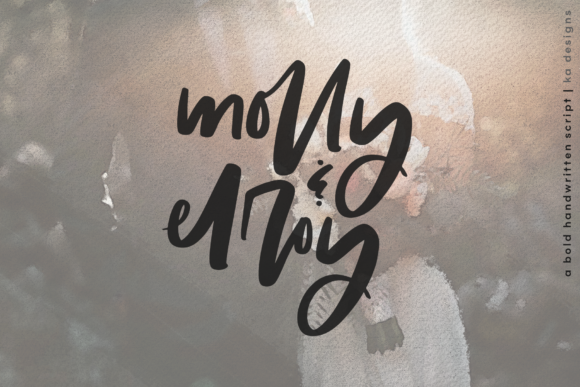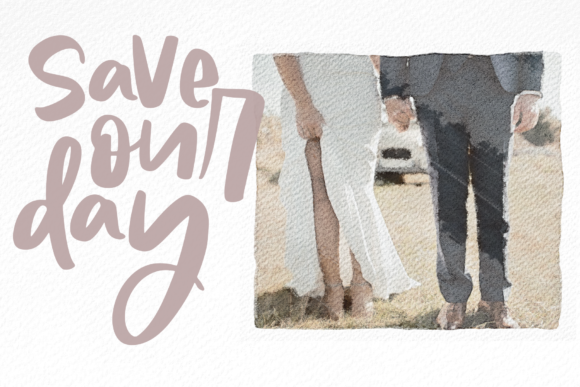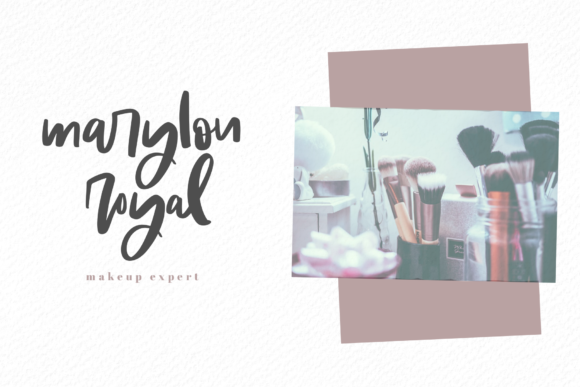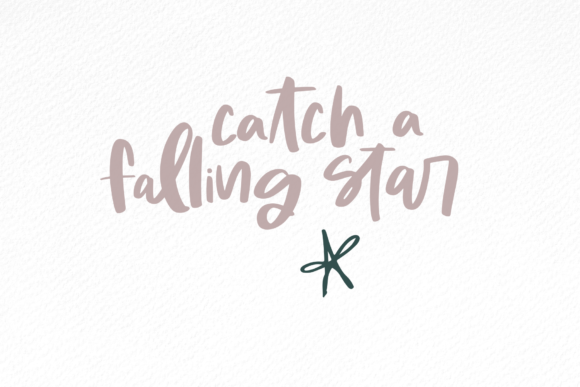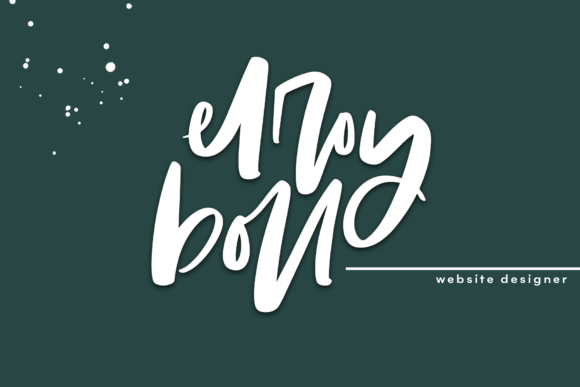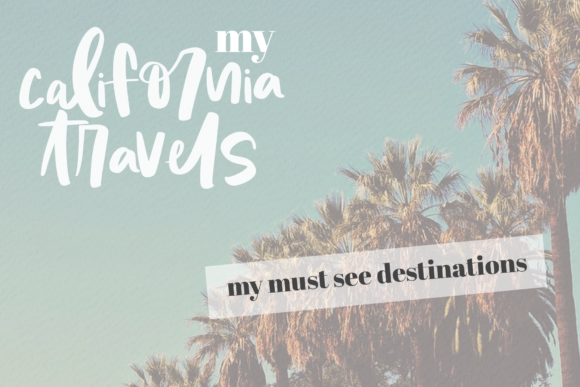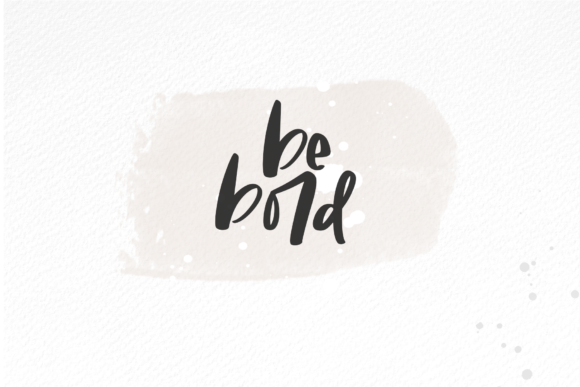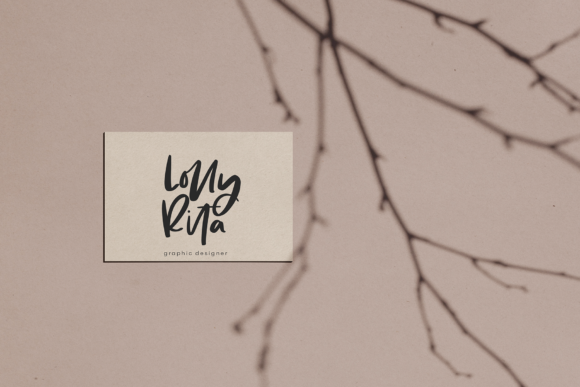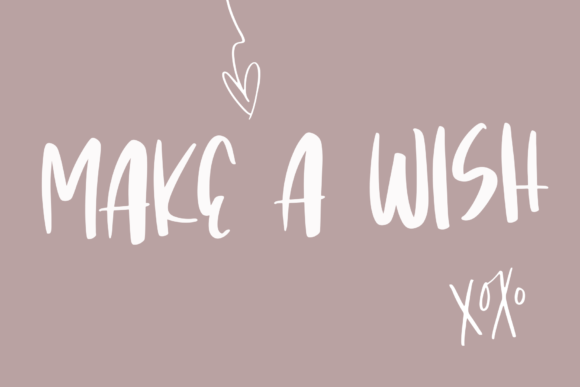
HomeScript FontsMolly & Elroy Font Script Fonts Molly & Elroy Font FacebookXPinterestWhatsApp Molly & Elroy Font Poster 2 Molly & Elroy Font Poster 3 Molly & Elroy Font Poster 4 Molly & Elroy Font Poster 5 Molly & Elroy Font Poster 6 Molly & Elroy Font Poster 7 Molly & Elroy Font Poster 8 Molly & Elroy Font Poster 9 About Molly & Elroy Font Molly & Elroy is a cute & fun script with smooth and bold letters, making it perfect for crafting! DOWNLOAD ON CREATIVE FABRICAThis font is sold and delivered by Creative Fabrica. Font Canyon may earn a commission if you buy through this link. People also explored Winter Anything Font Fashionista Gordon Font Discovery Book Font Feed Your Soul Font Christmas Farmhouse Font Sunday Special Font Aderra Font Before Font 303 0 TagsMolly & Elroy Font Previous articleWildflowers FontNext articleAuthem Font LEAVE A REPLY Cancel reply Comment: Please enter your comment! Name:* Please enter your name here Email:* You have entered an incorrect email address! Please enter your email address here Website: Save my name, email, and website in this browser for the next time I comment. Personal Use Free Bajt Rounded Personal Use Free Read more about this font Hatchill Personal Use Free Read more about this font Aelten Personal Use Free Read more about this font Breather Personal Use Free Read more about this font BLOG To increase your work productivity, choose the most readable fonts. In today's fast-paced work environment, where digital communication and information consumption are integral to our daily routines, the choice of fonts can significantly impact... Top 10 Handwritten Fonts That Elevate Your Designs Free Fonts Risk: Why Free Fonts Can Be Dangerous for Designers How to Install and Use Fonts on Windows, macOS, and Web Projects